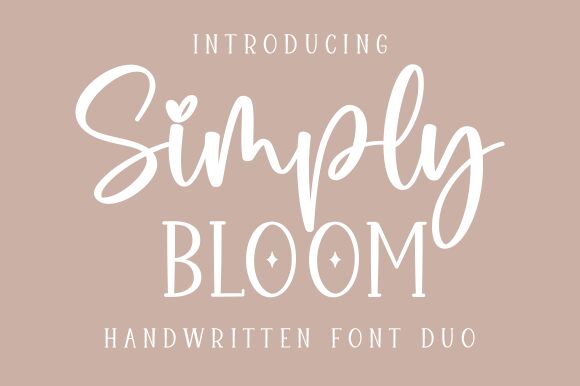
Simply, a delightful handwritten font by Graphix Line Studio, adds a touch of playfulness to any project. With its semi-light weight, it gracefully dances across the page like ink on paper.
Perfect for children's books, whimsical logos, and charming invitations, Simply brings warmth and personality to every design. Its flowing strokes and natural imperfections create an authentic hand-drawn feel that captures attention and sparks imagination.
Whether it's for a nursery rhyme collection or a trendy café menu, Simply is the font that effortlessly conveys creativity and joy.